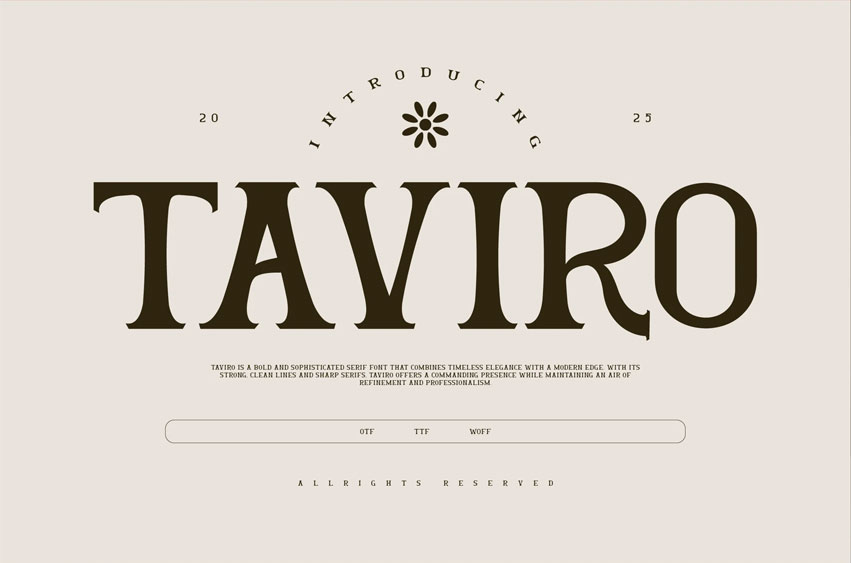
Taviro Font
Taviro Font is a bold and sophisticated serif font that combines timeless elegance with a modern edge.
With its strong, clean lines and sharp serifs, Taviro offers a commanding presence while maintaining an air of refinement and professionalism.